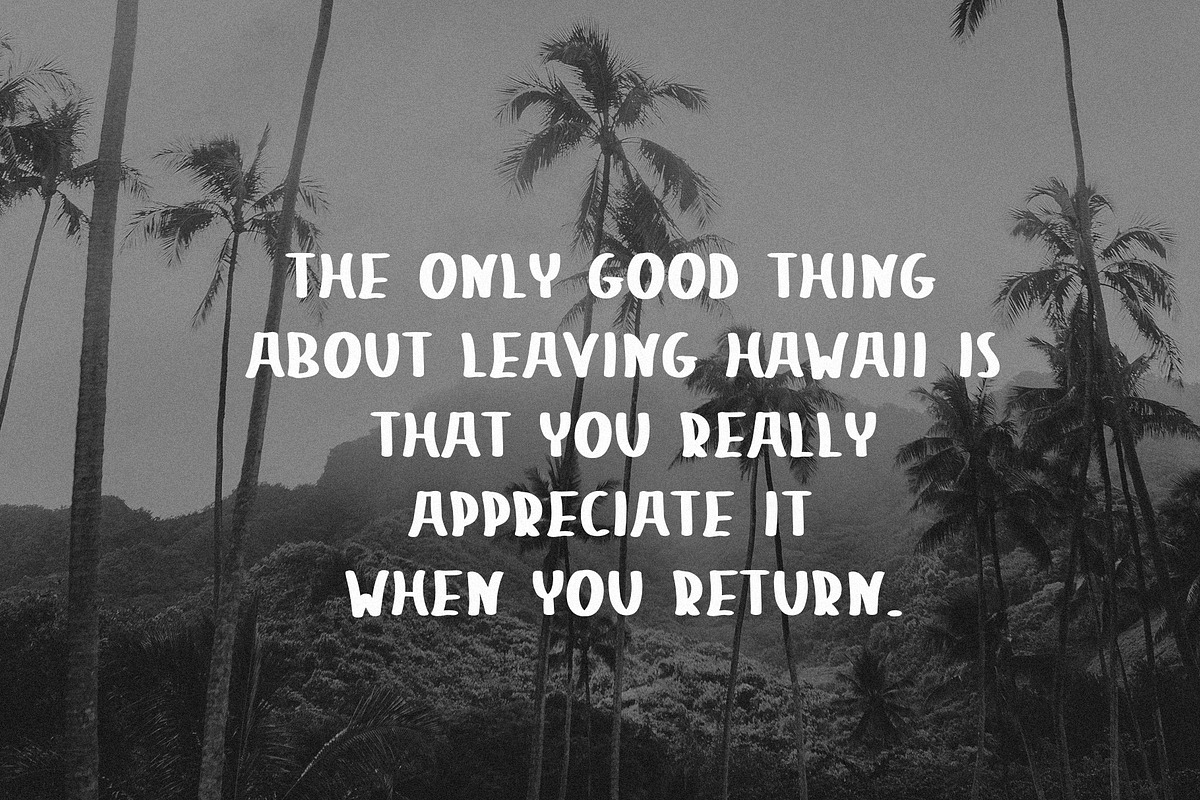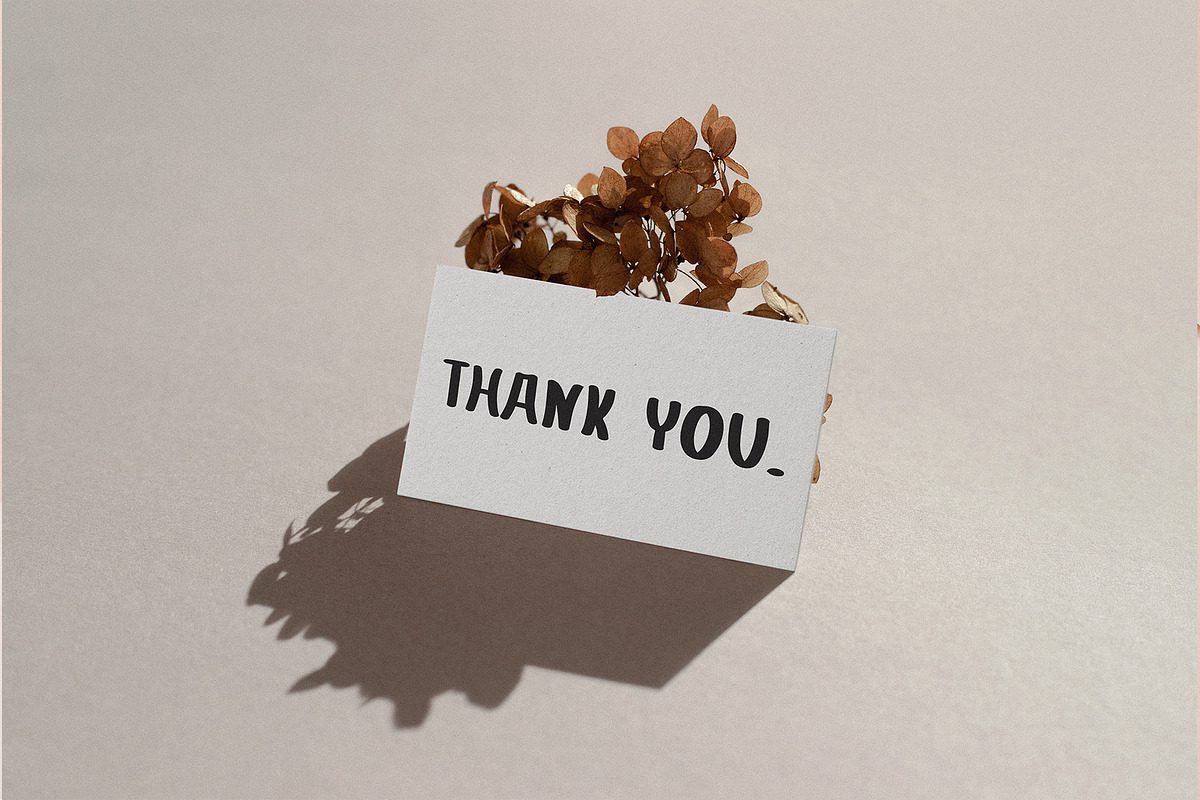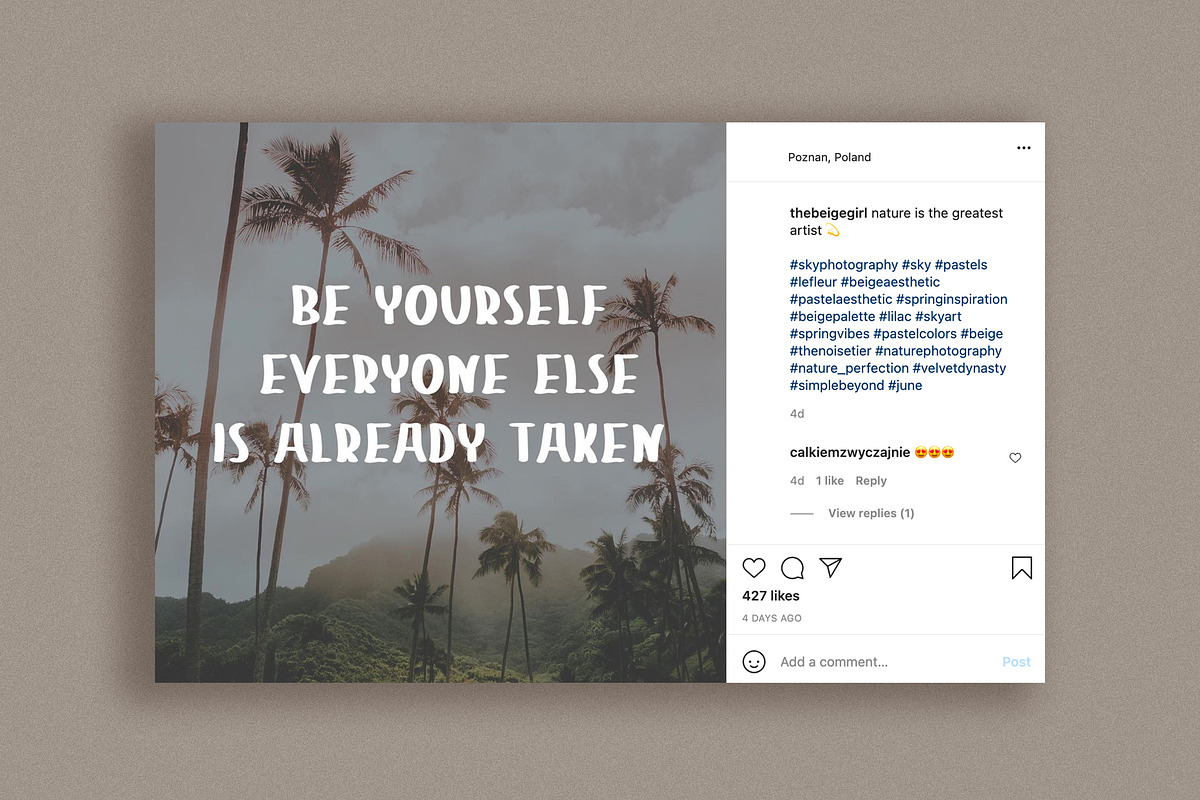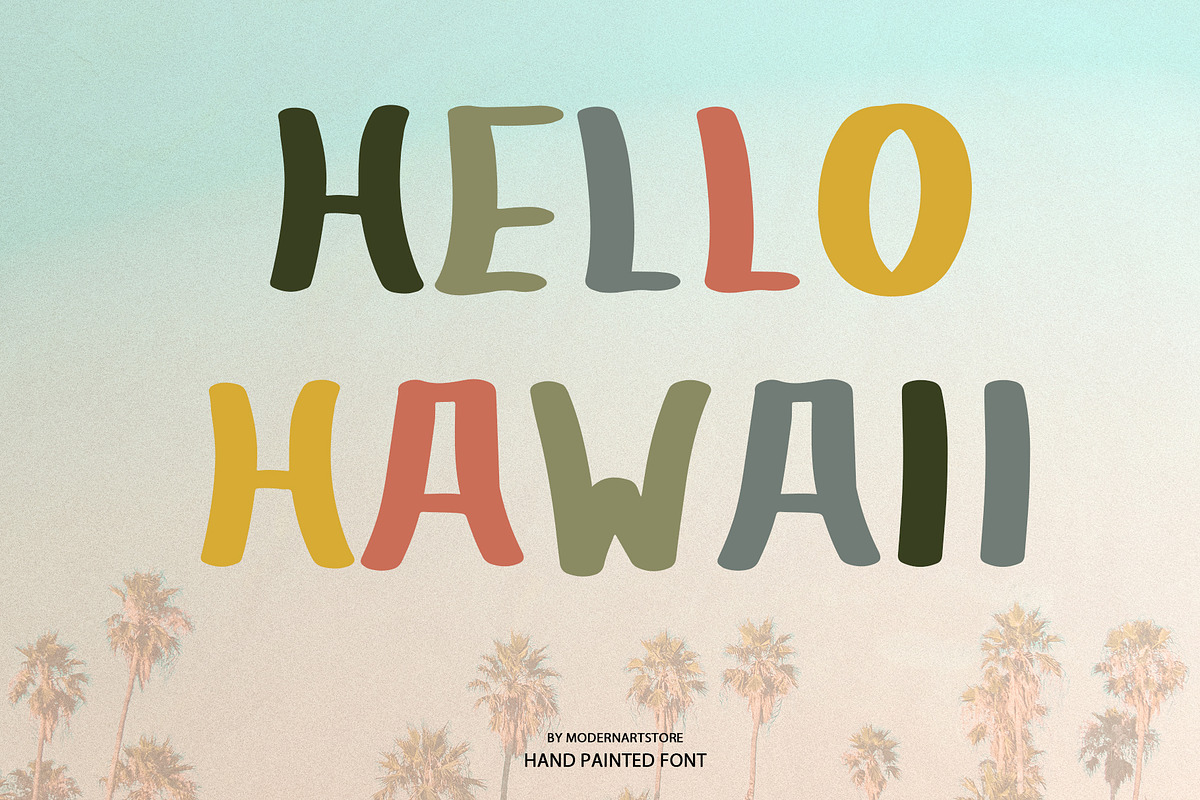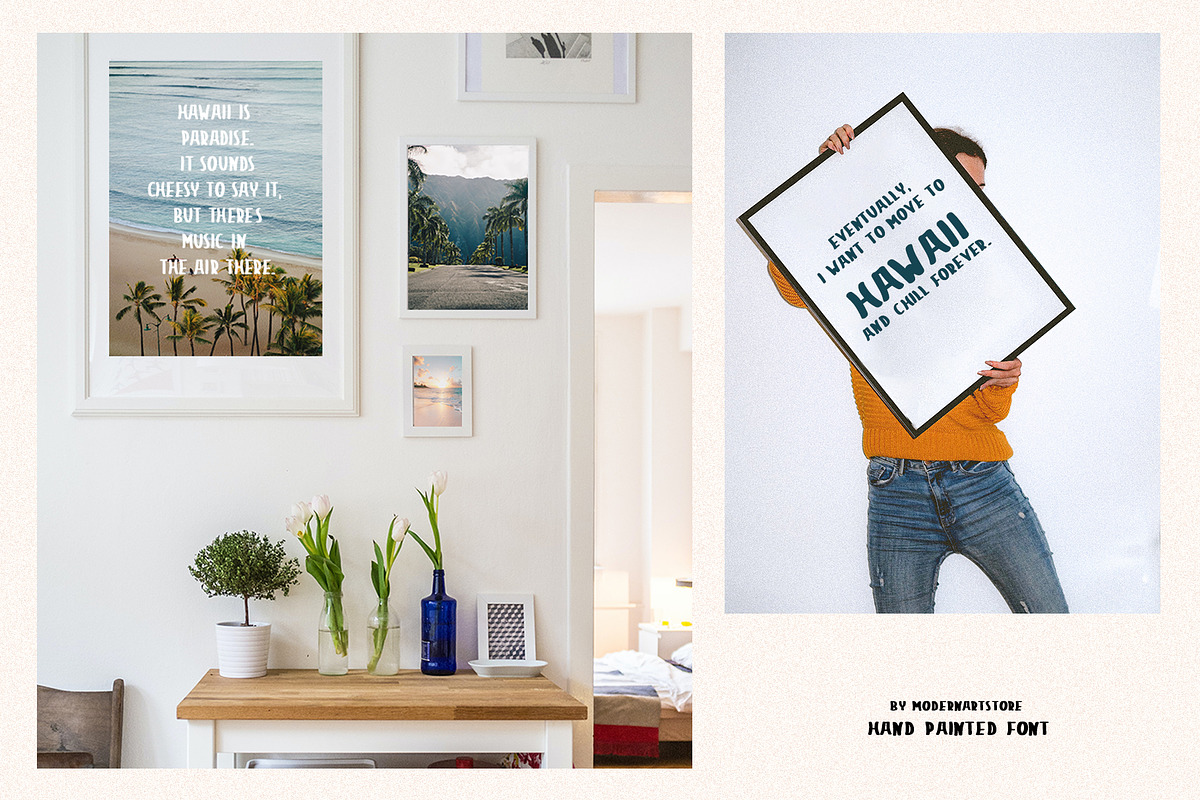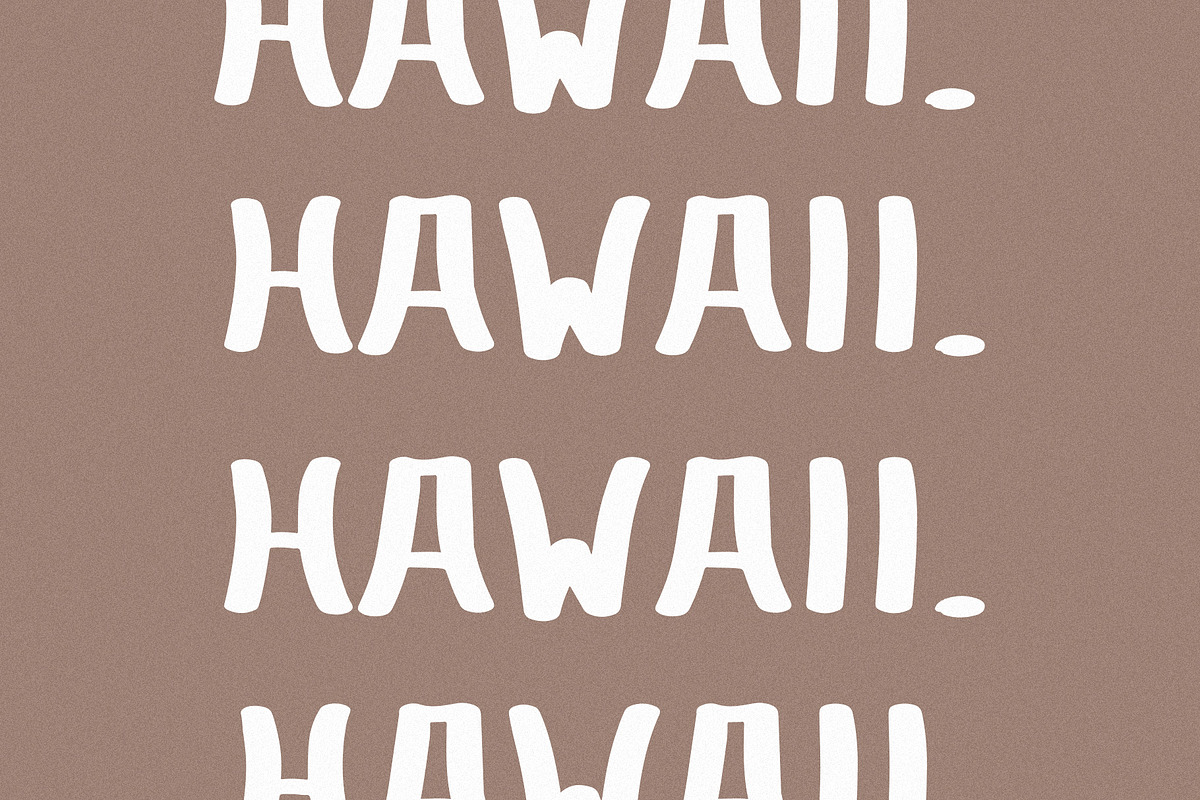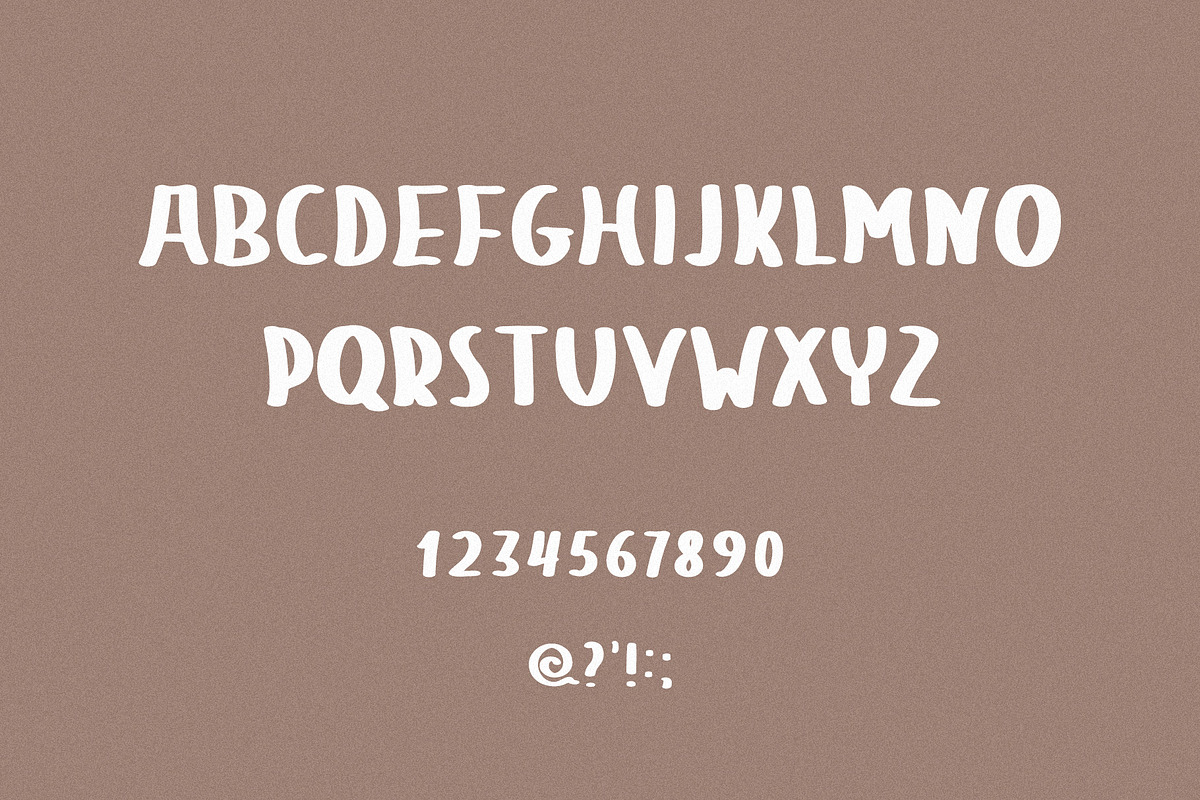
Hello Hawaii - Modern Font
Introducing HELLO HAWAII font for posters, blogs, kids designs, party cards, social media design and other! Create easy and vibrant combinations and decorate your designs with them!